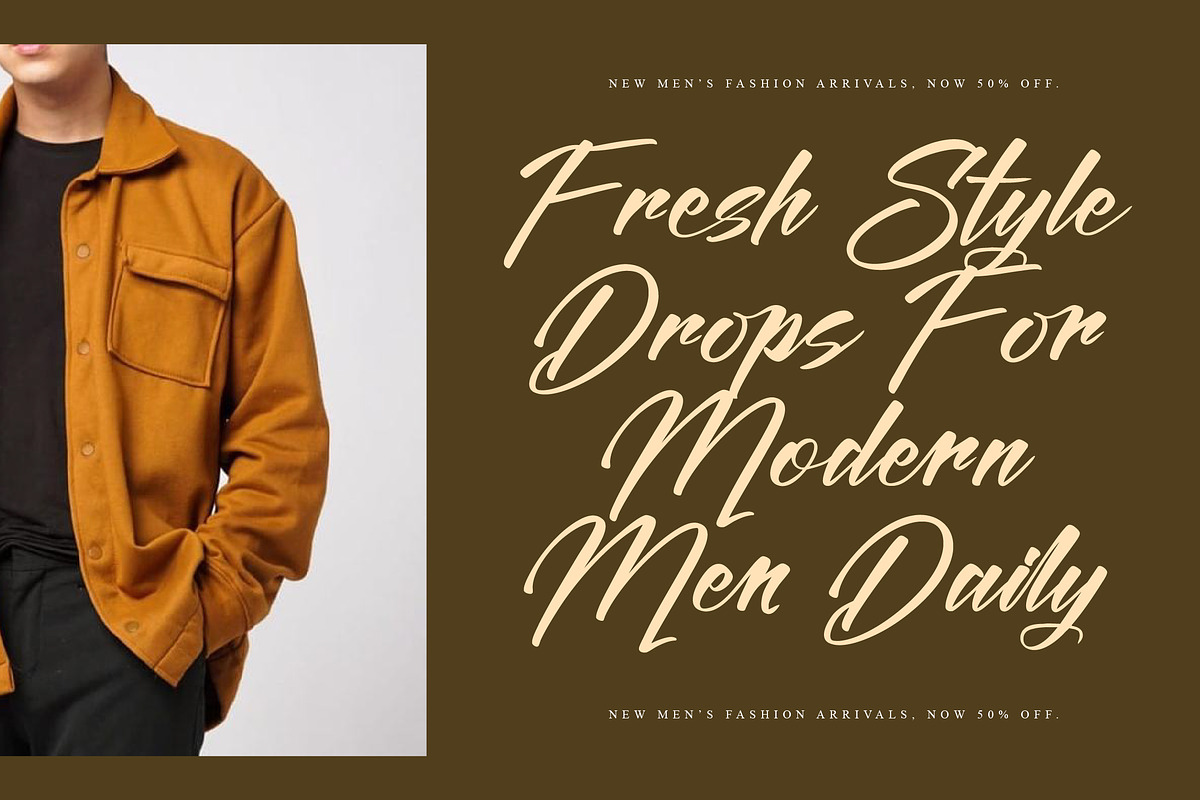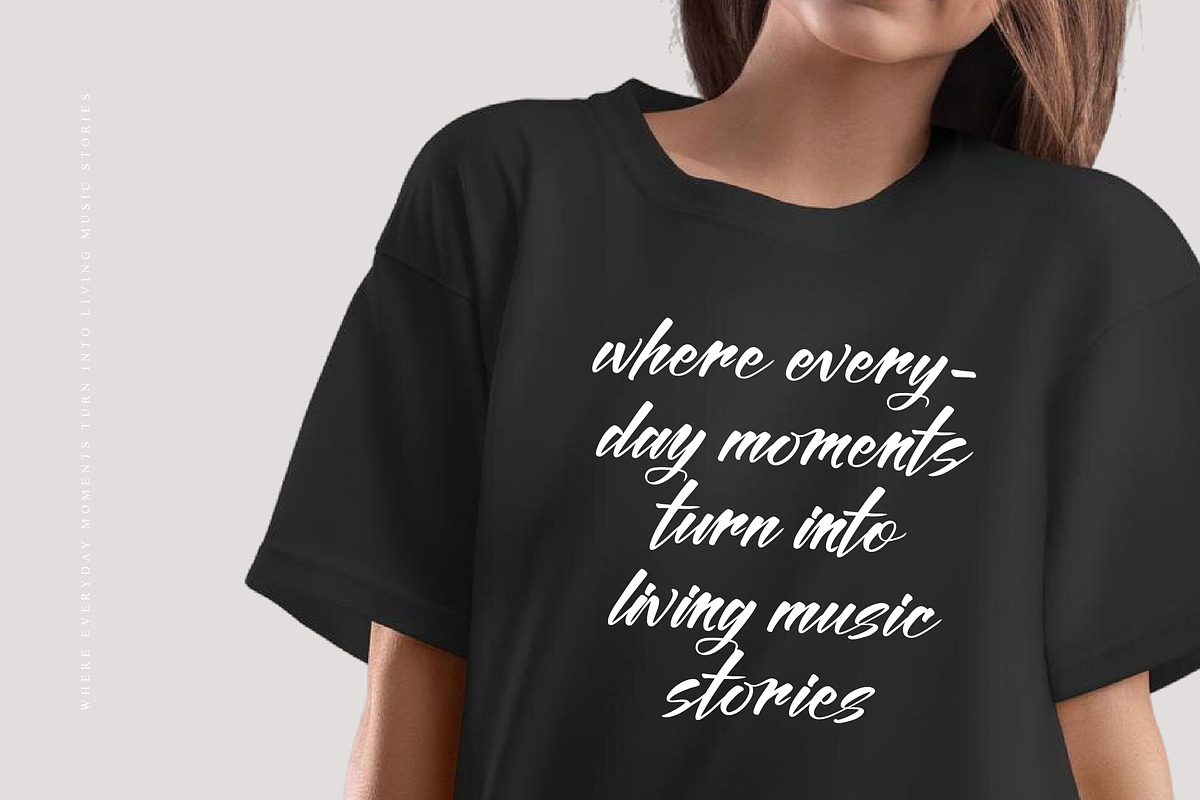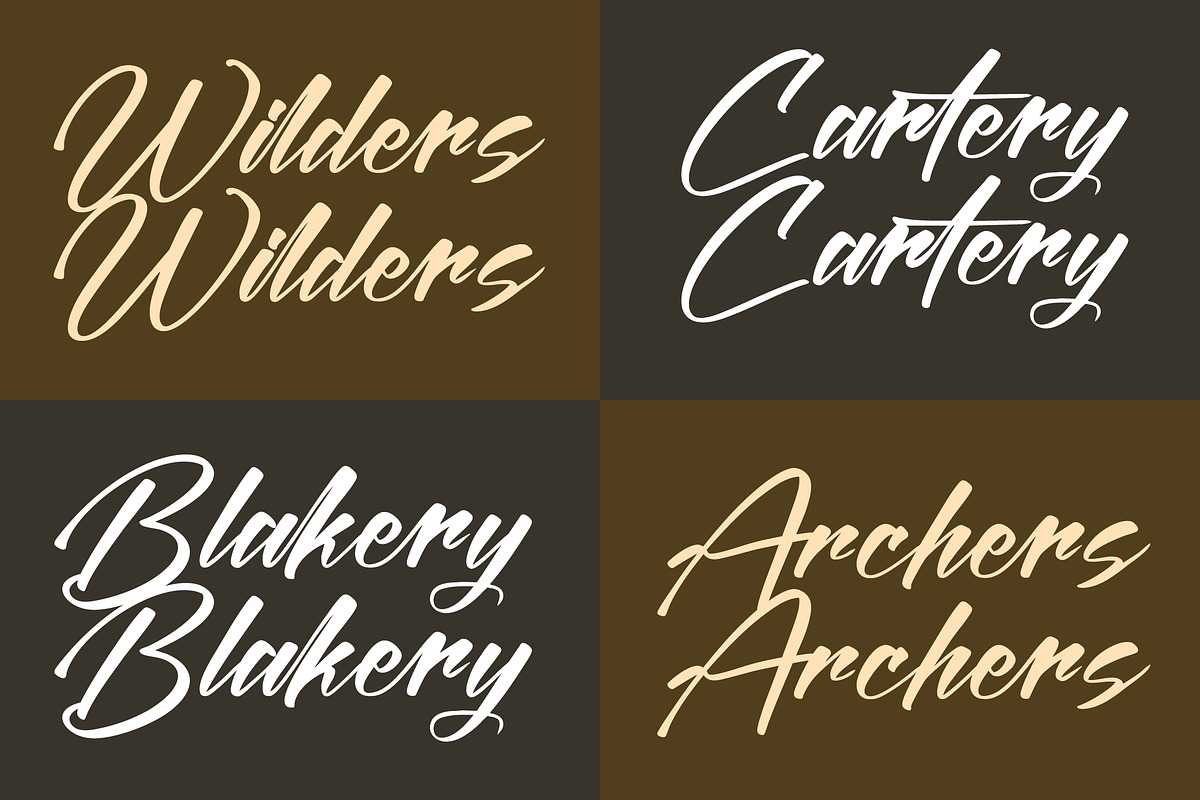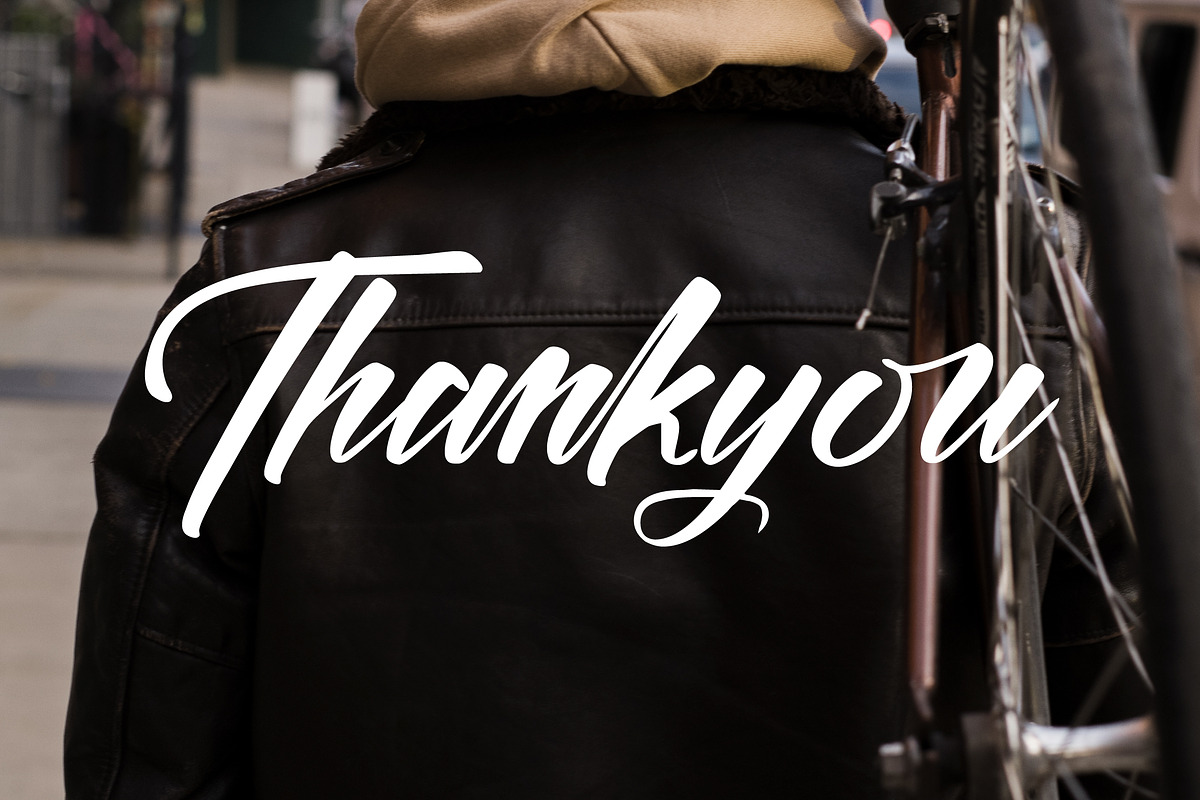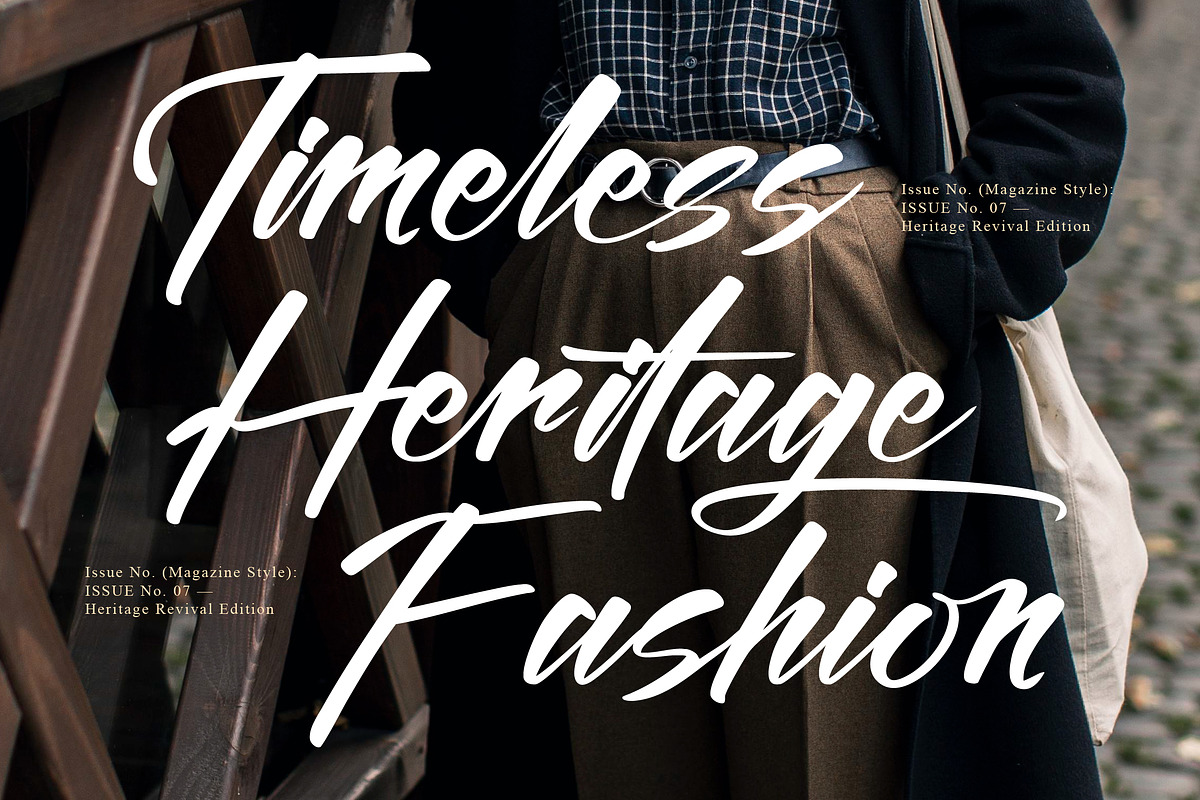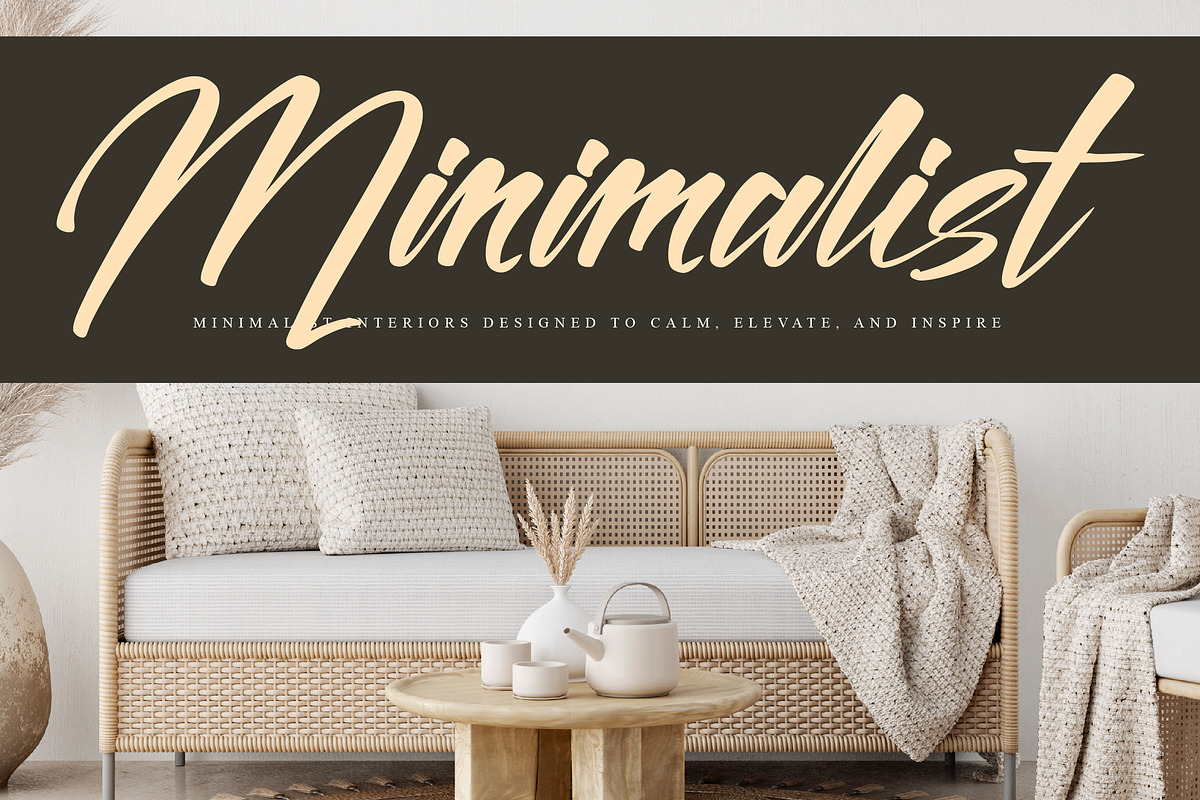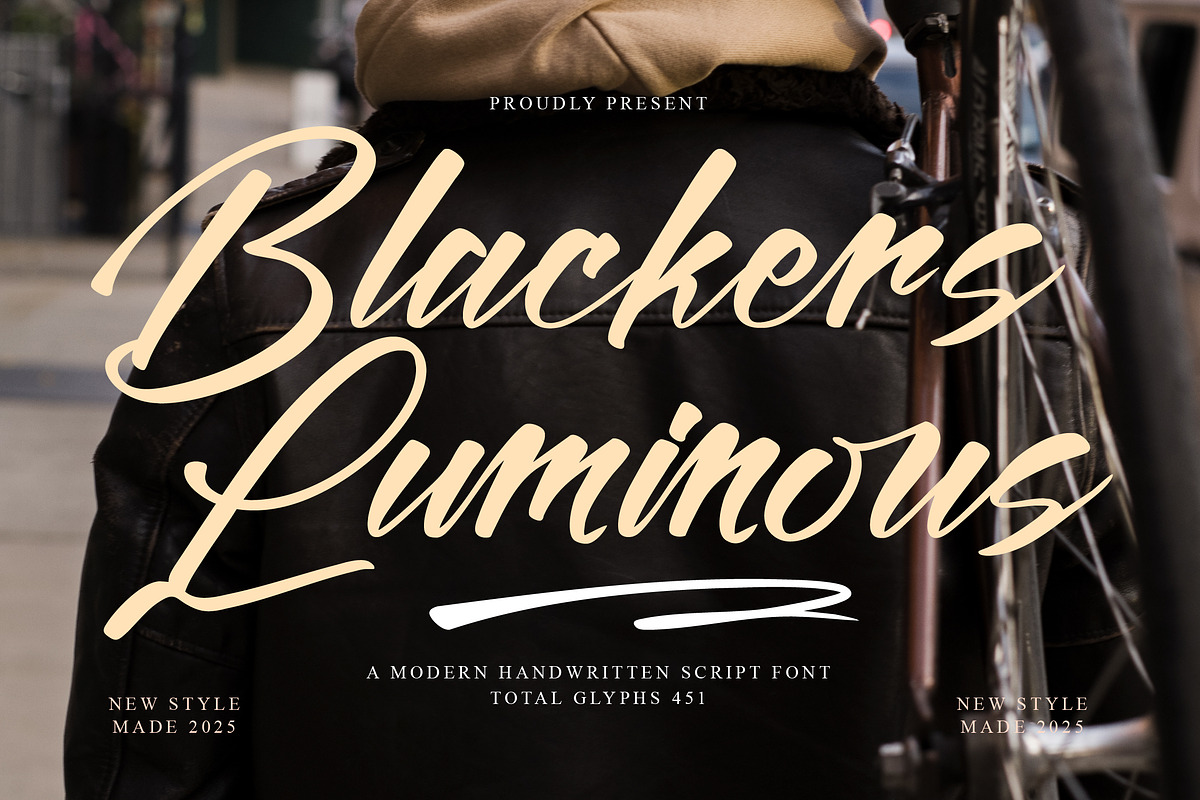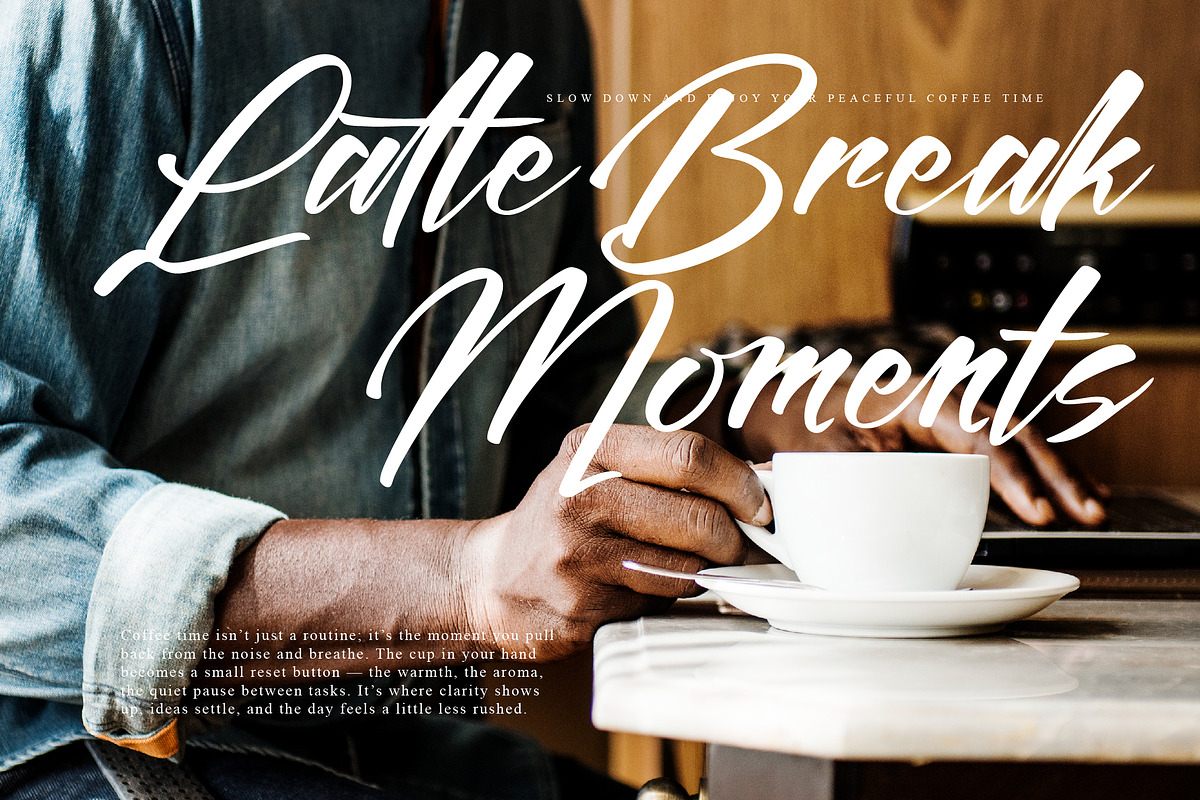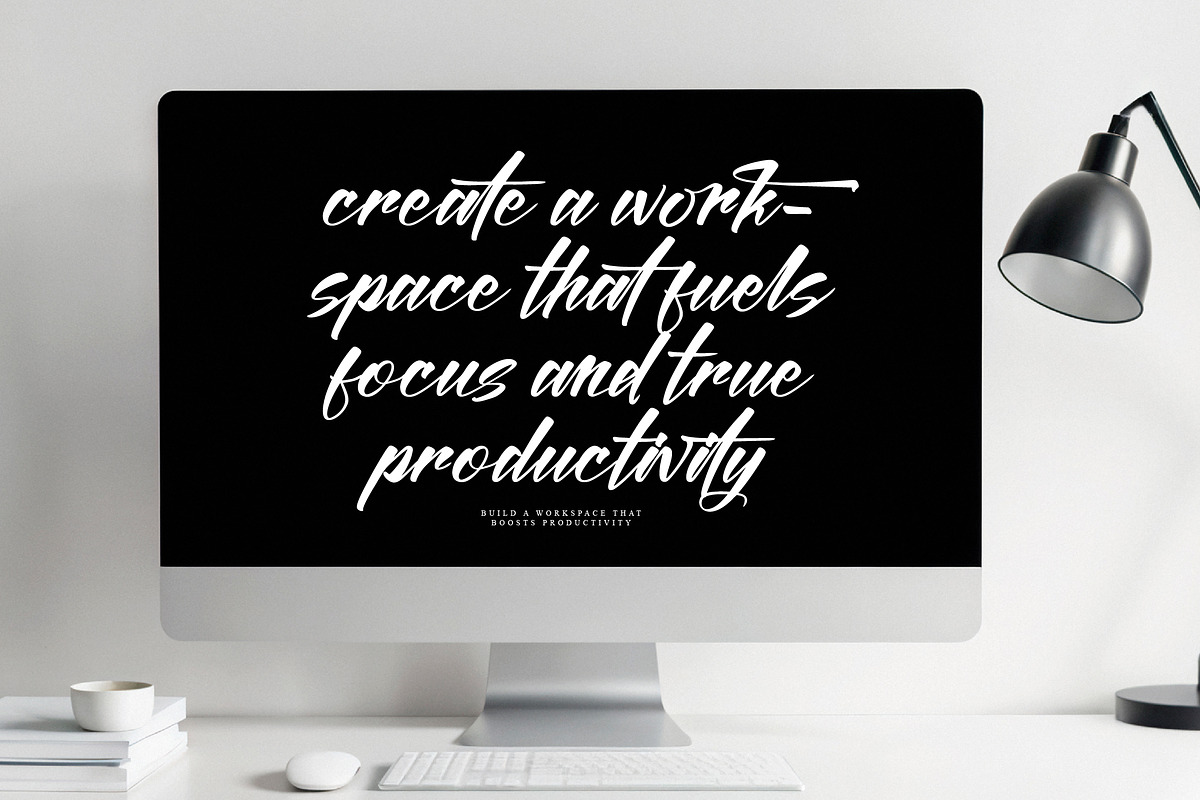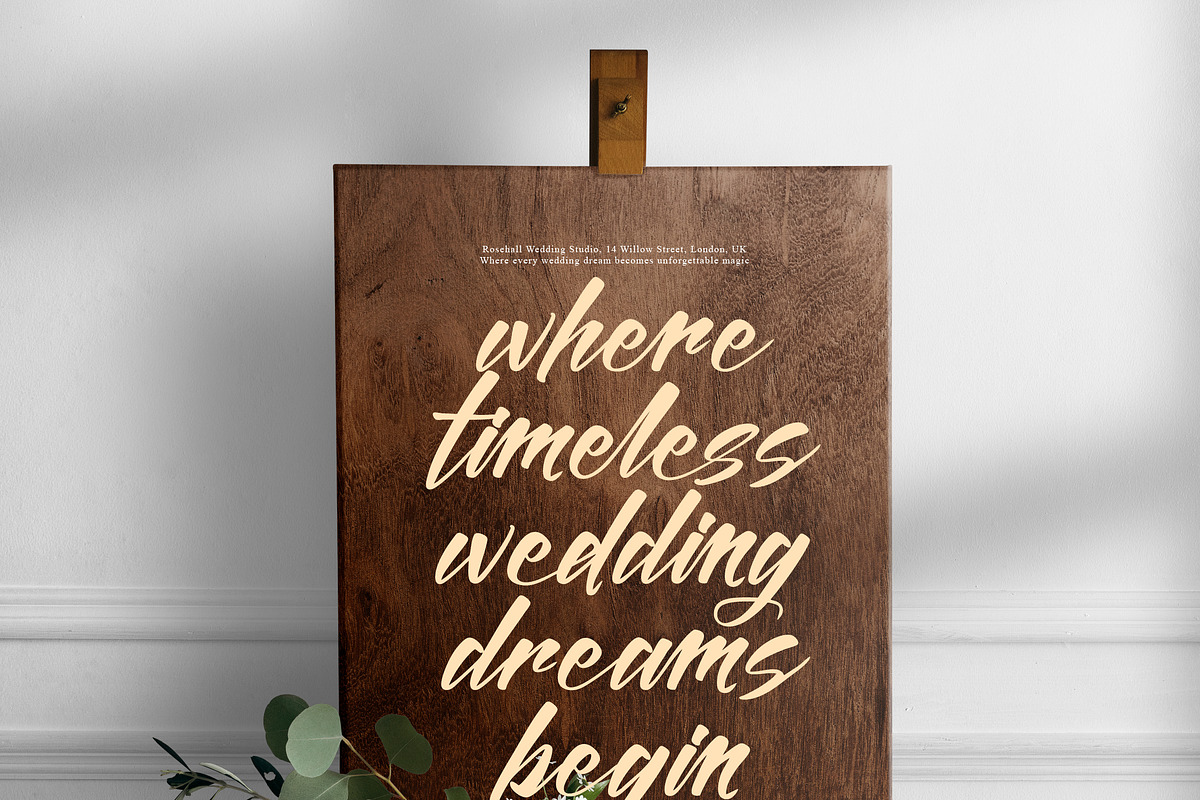
Blackers Luminous
Blackers Luminous - A Modern Handwritten Script Font, from Operatype, perfect for any project like: logos, branding projects, homewares designs, product packaging, mugs, quotes, posters, shopping bags, t-shirts, covers books, business cards, invitation cards, greeting cards, labels, photography, watermarks, special events and all your other luxury projects that require a premium taste.
Ligatures, Alternate & Swashes